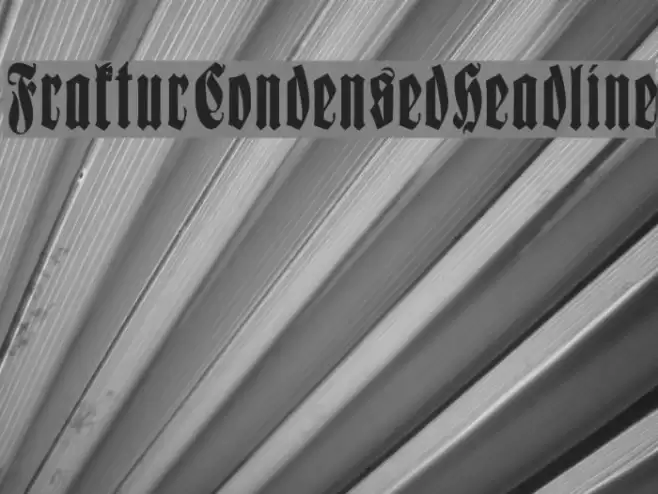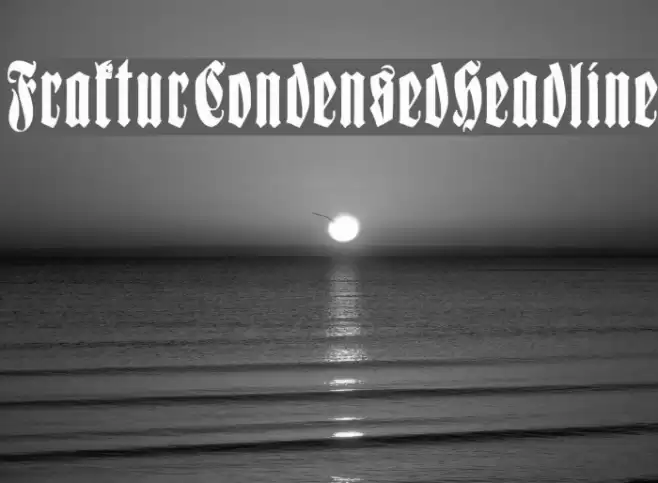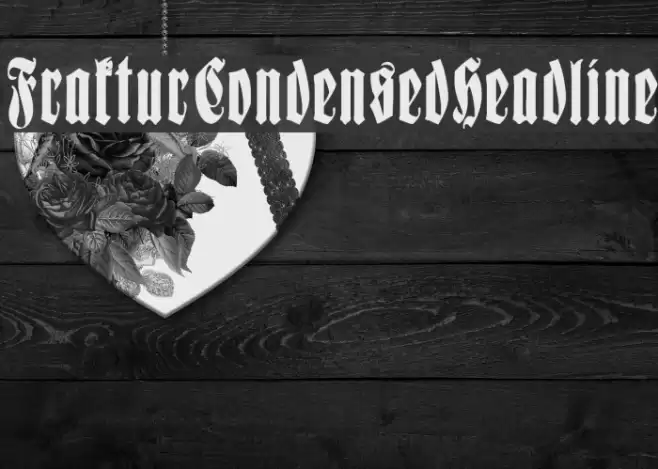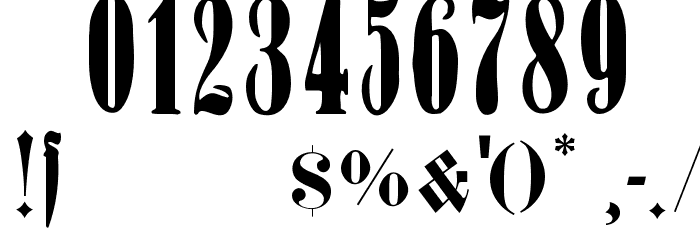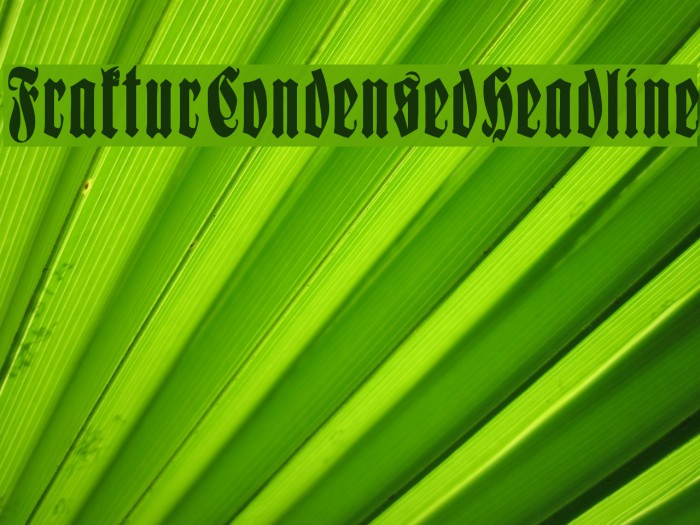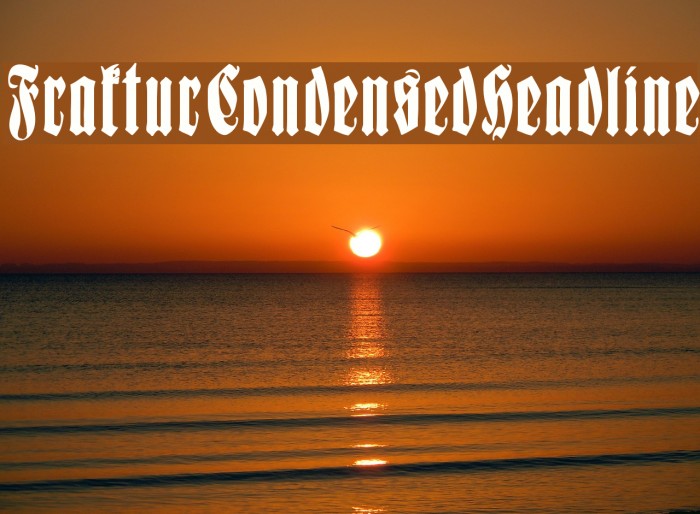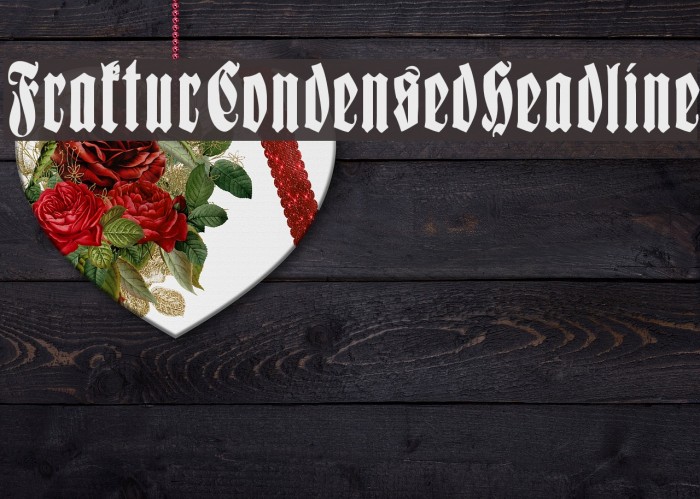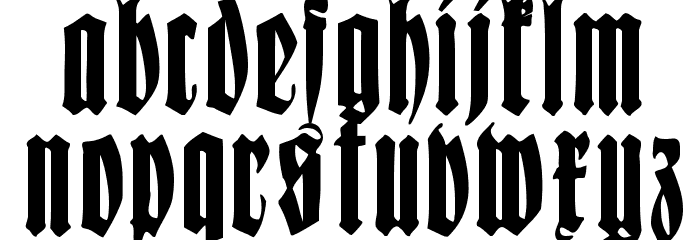
FrakturCondensedHeadline Font
FrakturCondensedHeadline Description
This font embodies the traditional elegance of blackletter styles, characterized by its intricate and ornate letterforms. The uppercase letters are bold and commanding, with sharp, angular lines and dramatic flourishes that evoke a sense of historical gravitas. The lowercase letters maintain this aesthetic, offering a cohesive and visually striking appearance. The numerals are equally bold, ensuring consistency across all characters. This font is designed with a condensed width, enhancing its ability to create impactful headlines while maintaining readability. The spacing between characters is tight, contributing to its dense and powerful look. The high contrast between thick and thin strokes adds to its dramatic flair, making it ideal for projects that require a touch of vintage sophistication.
A bold, condensed blackletter font with high contrast and intricate details from Uncategorized fonts.
- Proposed Projects: Ideal for historical or vintage-themed designs, book covers, posters, and branding that requires a classic and authoritative look.
- Character Spacing: Tight
- Overall Style: Vintage